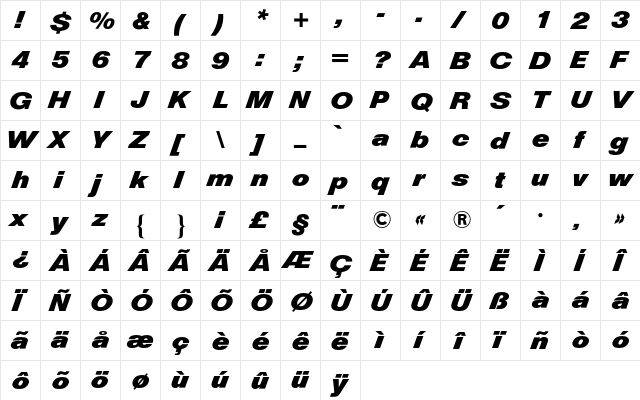
Helvetica Diagonal BQ Regular
Design Context for Helvetica Diagonal BQ Typeface
Helvetica Diagonal BQ takes a measured approach to typography — its balanced proportions and neutral character make it a reliable workhorse for both digital and print work.